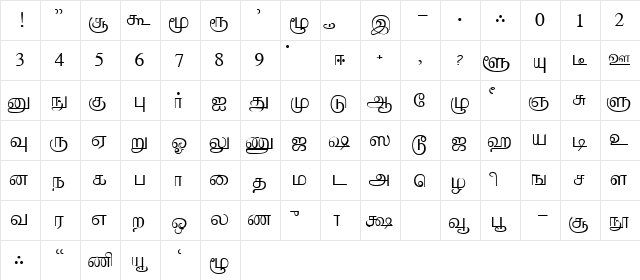
Aabohi PC
Design Context for Aabohi Typeface
Aabohi offers clean, dependable letterforms without strong stylistic allegiance, making it a practical choice for designers who need flexibility.
Pro Tip: Use Aabohi in both headline and body roles to test its range before committing to a single application.